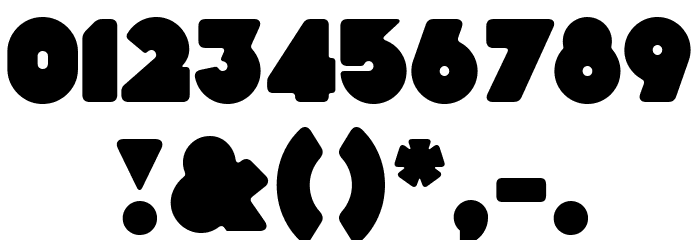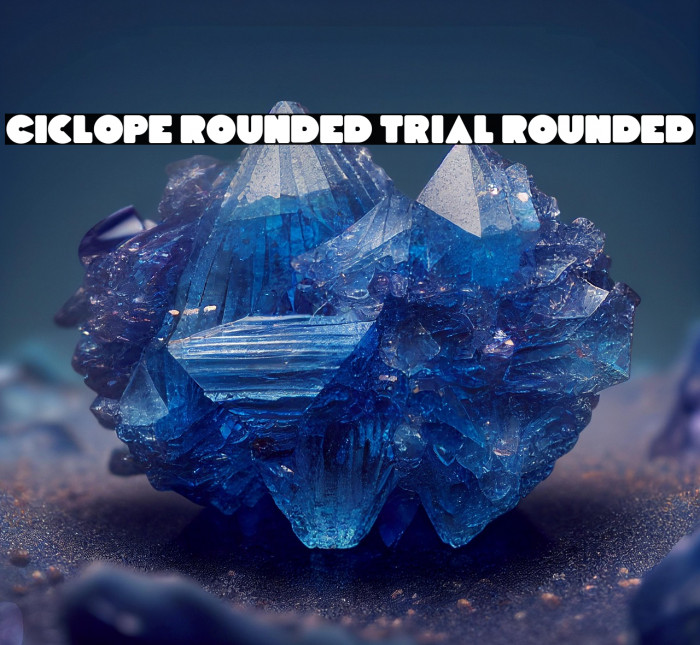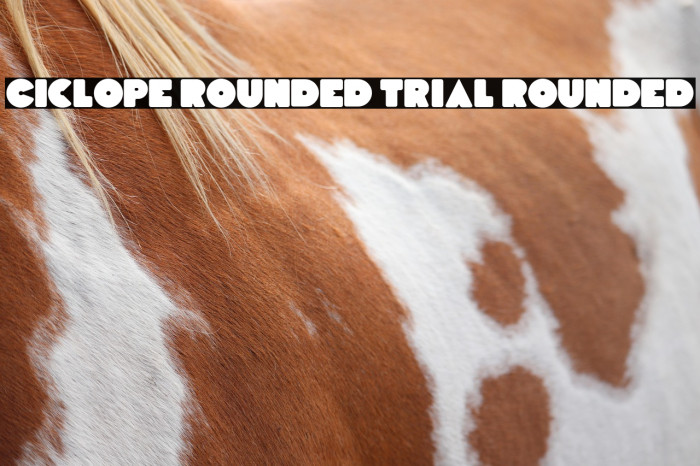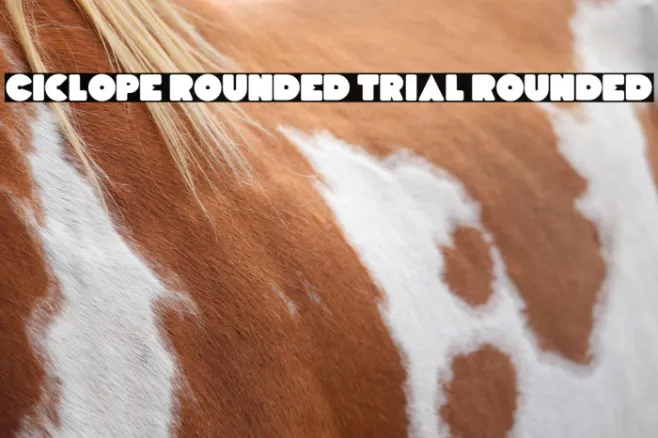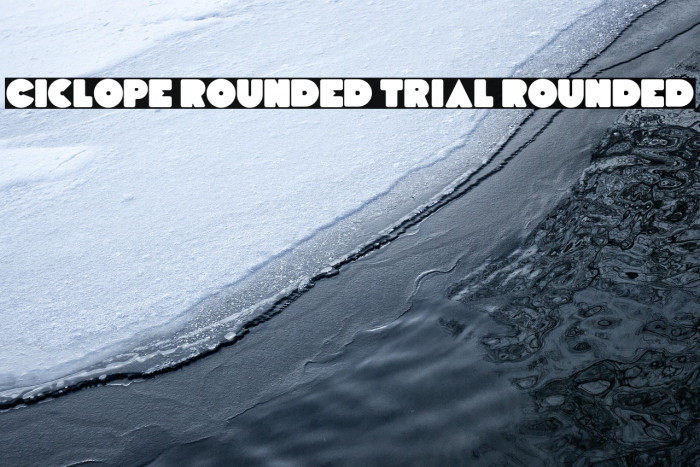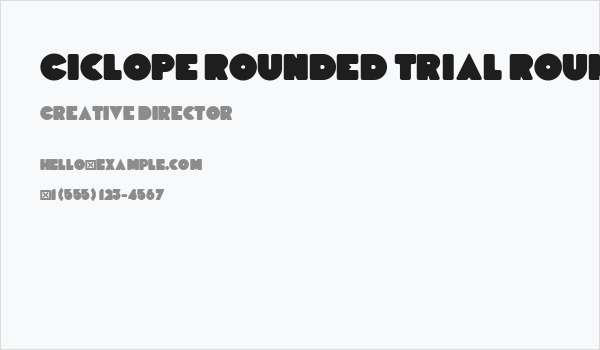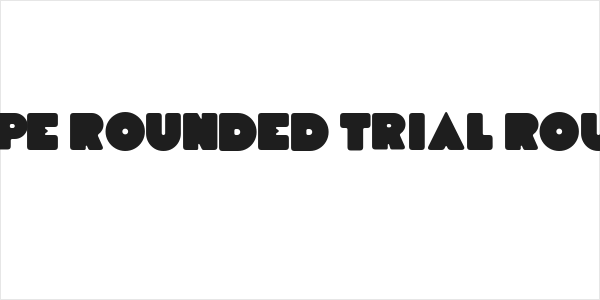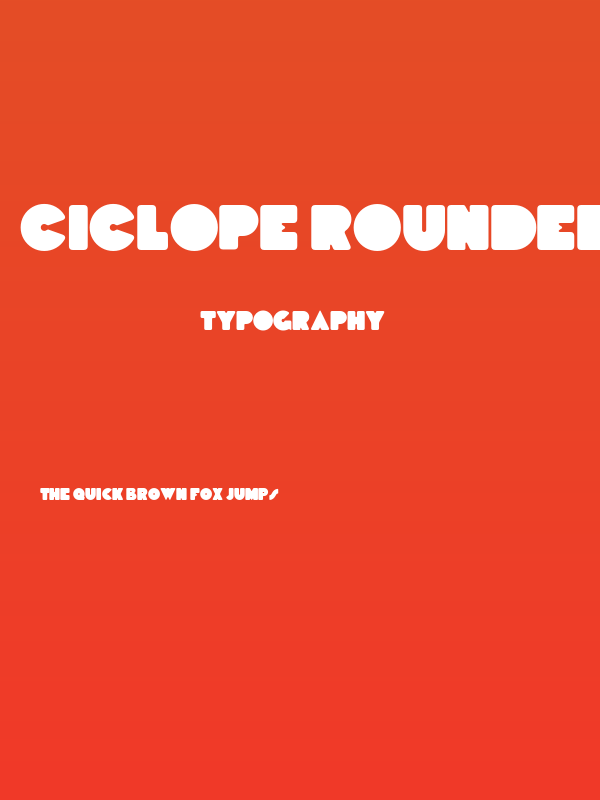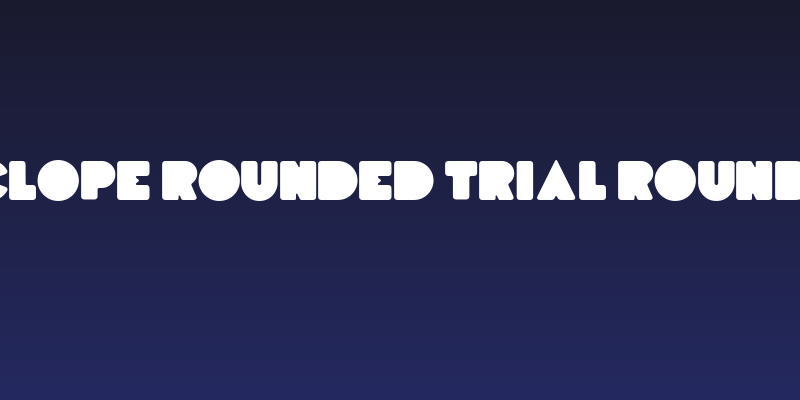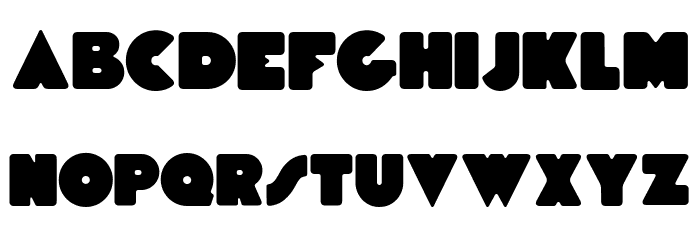
Ciclope Rounded Trial Rounded Font
Ciclope Rounded Trial Rounded Description
This font features a bold and rounded style with a strong geometric influence. The characters are uniformly thick, creating a cohesive and impactful appearance. The rounded edges soften the overall look, making it approachable and friendly while maintaining a modern aesthetic. The uppercase and lowercase letters are consistent in style, with a playful yet structured form. The numerals and special characters follow the same design principles, ensuring uniformity across all elements. This font is ideal for projects that require a bold statement with a touch of whimsy.
| Proposed Projects | Ideal for branding, posters, headlines, and any design needing a bold, friendly touch. |